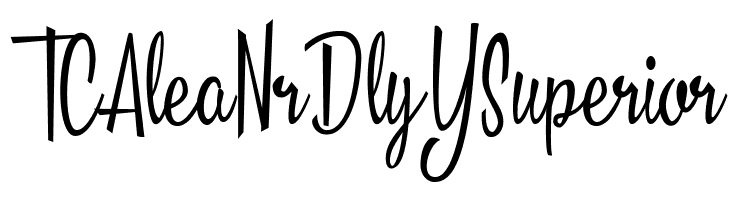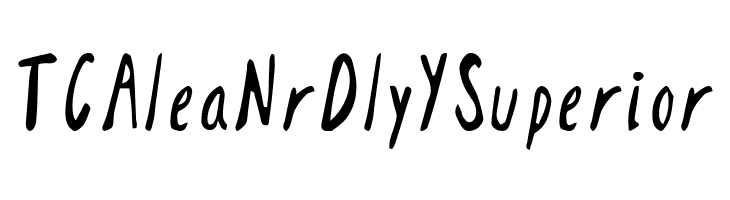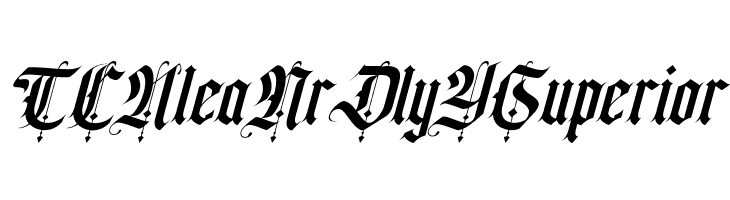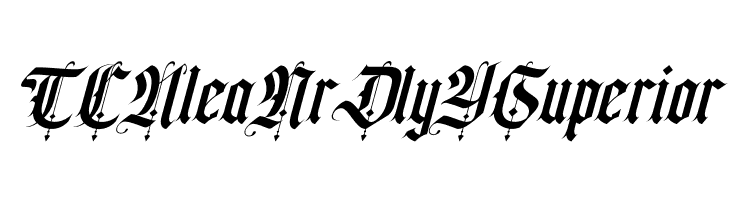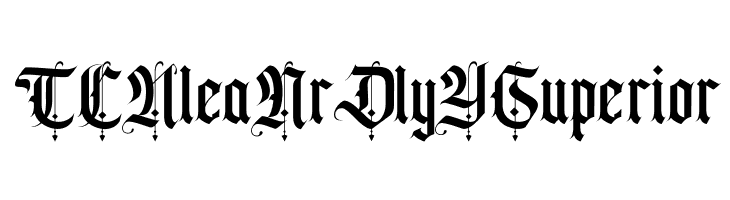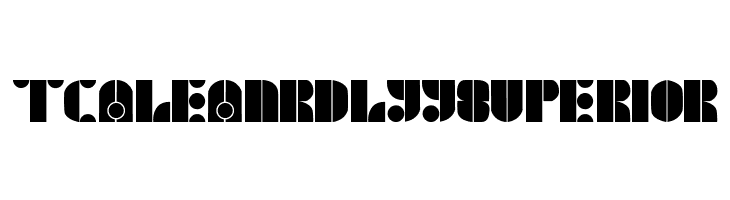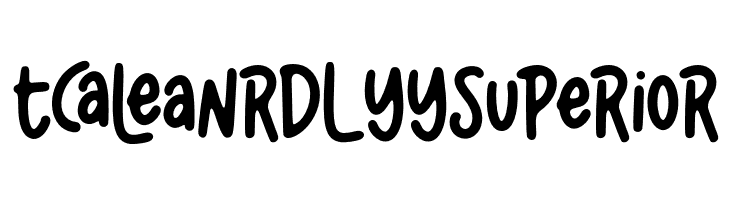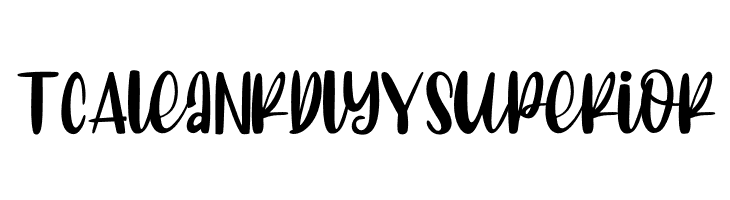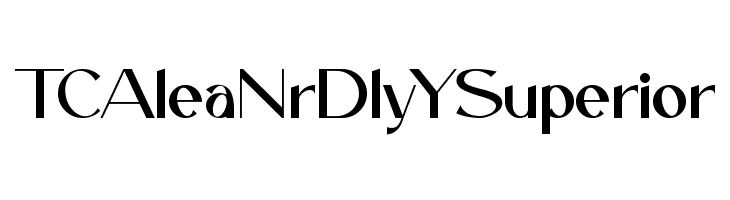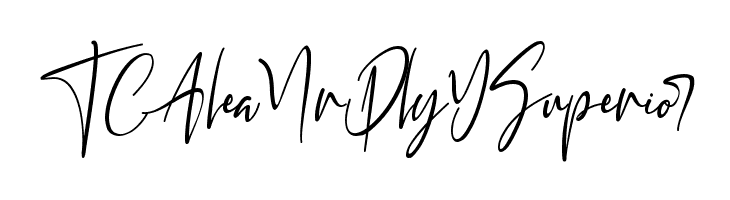
• California
A bold, vintage-style font with thick, blocky characters ideal for impactful designs.
• California Alternate
A dynamic and elegant script font with flowing, cursive letterforms.
• California Bright
A fluid, elegant handwritten font with a natural flow and delicate strokes.
• CAlifornia dolphin
A bold, modern script font with a playful, handwritten style.
• California Dreamin'
A bold, geometric font with circular and semi-circular elements.
• California Italic
A dynamic, cursive font with fluid, slanted characters.
• California Personal Use Regular
An elegant script font with flowing, ornate characters.
• California Sans
A playful, casual handwritten font with uneven strokes and a friendly appearance.
• California Scene
A playful, rounded font with bold, smooth curves and a friendly appearance.
• California Script
An elegant script font with flowing, interconnected characters and ornate flourishes.
• California Street
A lively handwritten font with dynamic strokes and artistic flair.
• California sun
A classic blackletter font with ornate, gothic elements and bold strokes.
• California sun Italic
A modern blackletter font with italic slant and intricate detailing.
• California sun Italic
A bold, blackletter-style font with high contrast and ornate details.
• California Sun Personal Use
A dynamic and elegant font with bold, slender strokes and cursive-like lowercase letters.
• California Swashes
• California Valley
A dynamic and flowing script font with elegant cursive letterforms.
• California Vibes
A playful, bold, and rounded font with a casual and dynamic style.
• California-Medium
A bold, brush-style font with dynamic and expressive strokes.
• California-Personal Use
A bold, cursive script font with a modern, handwritten style.
• CaliforniabyDirt2
A bold, distressed font with a grunge aesthetic and high contrast.